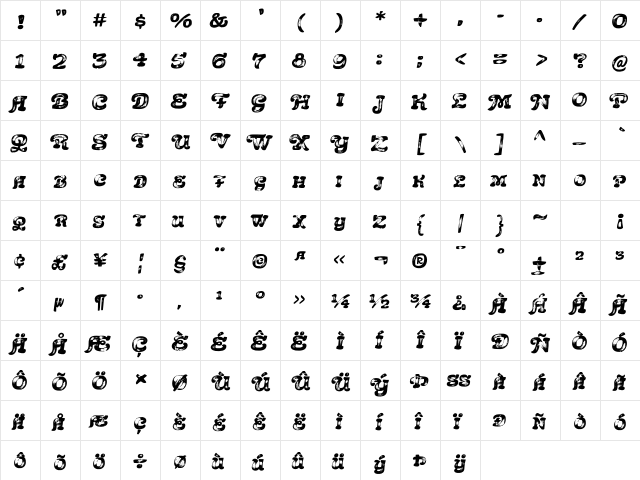
Acrylic Brush Regular
Design Context for Acrylic Brush Typeface
Acrylic Brush brings a calligraphic fluidity to the page — its connecting strokes and expressive curves give it an unmistakably human quality.
Font Pairing: Combine Acrylic Brush with a simple geometric sans for maximum contrast — the tension between flowing curves and clean structure is a classic typographic pairing.
Pro Tip: Use Acrylic Brush for short runs of text — names, titles, or taglines. Extended body copy in script faces tires the eye quickly.